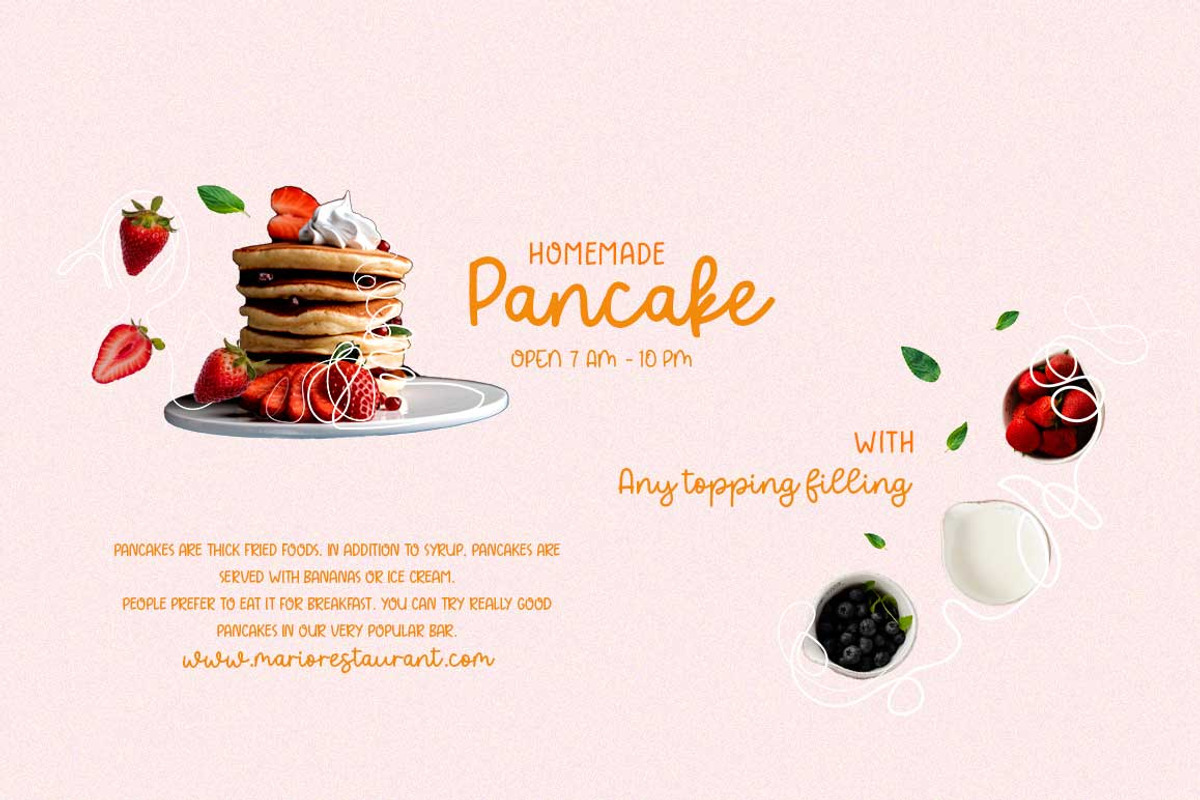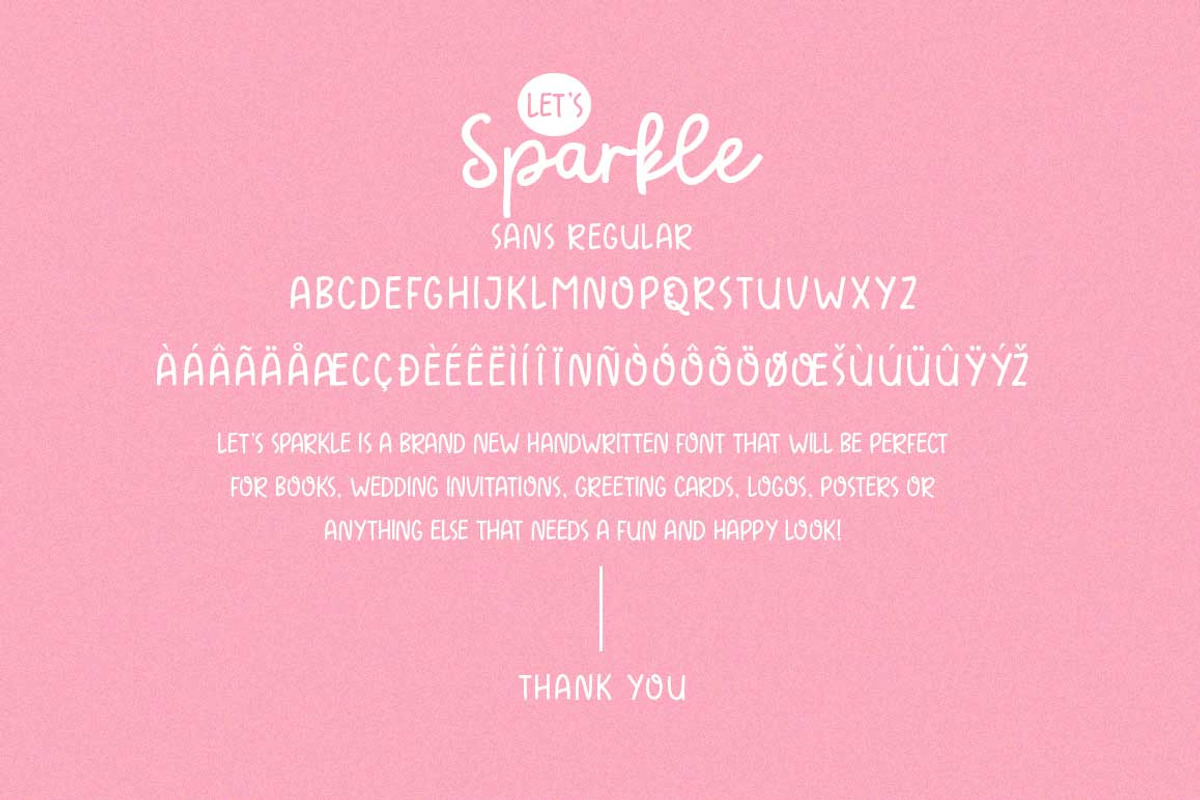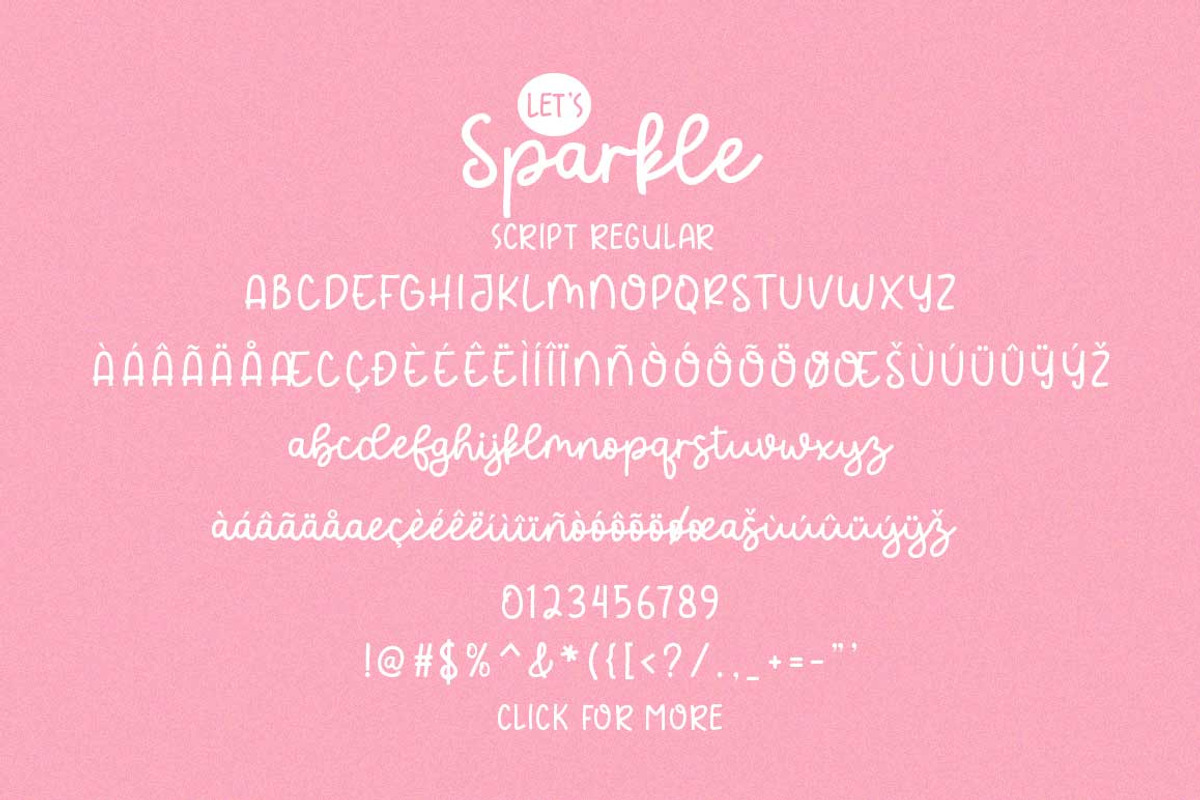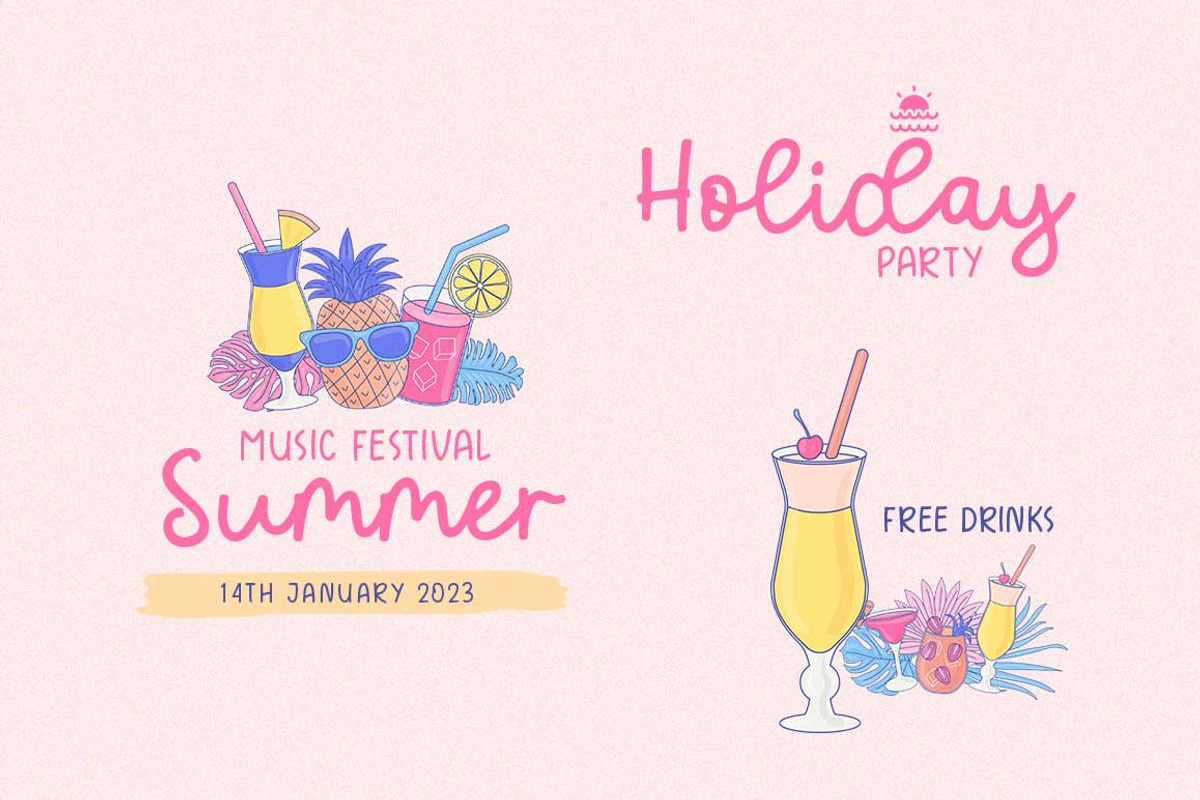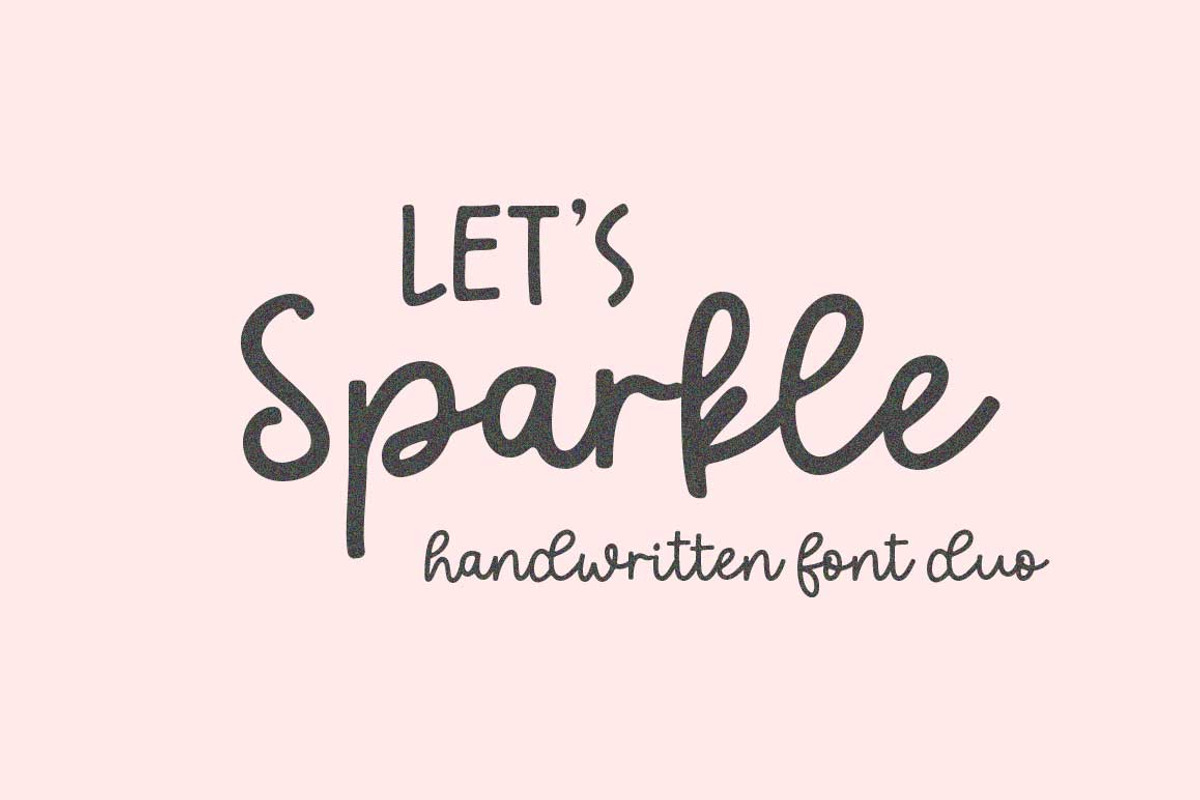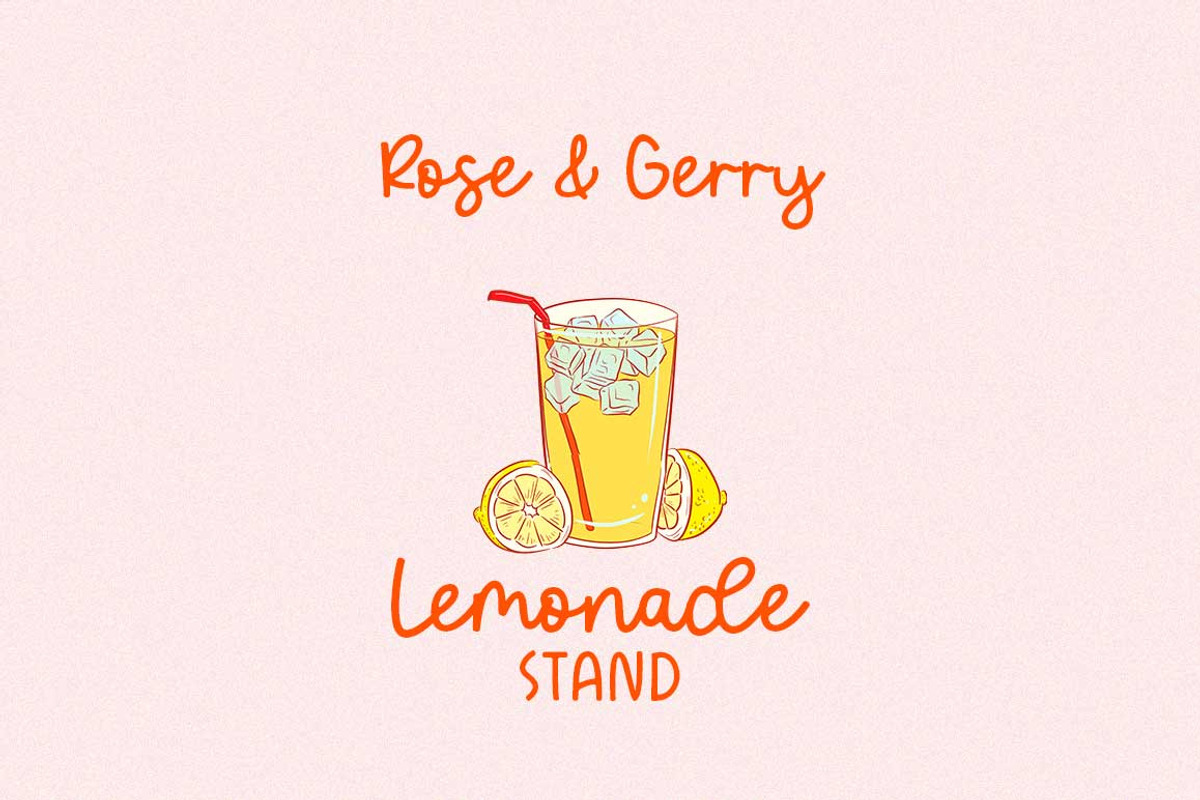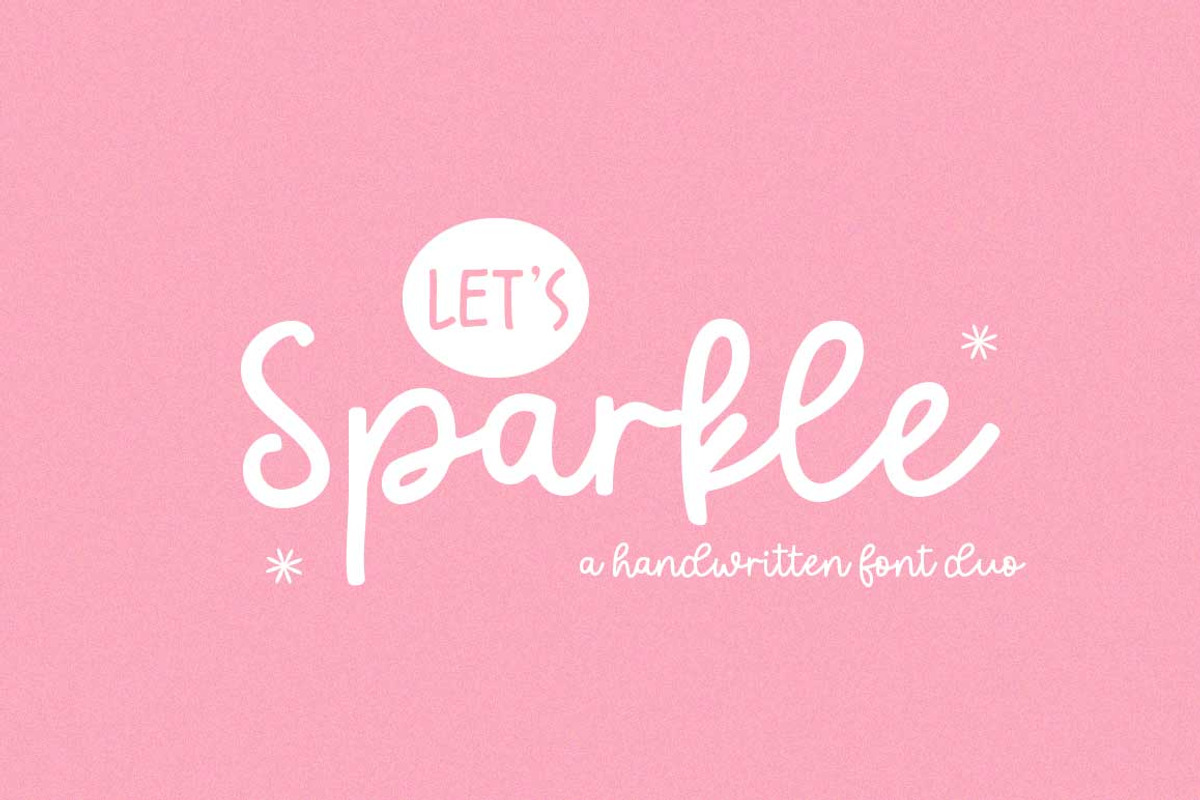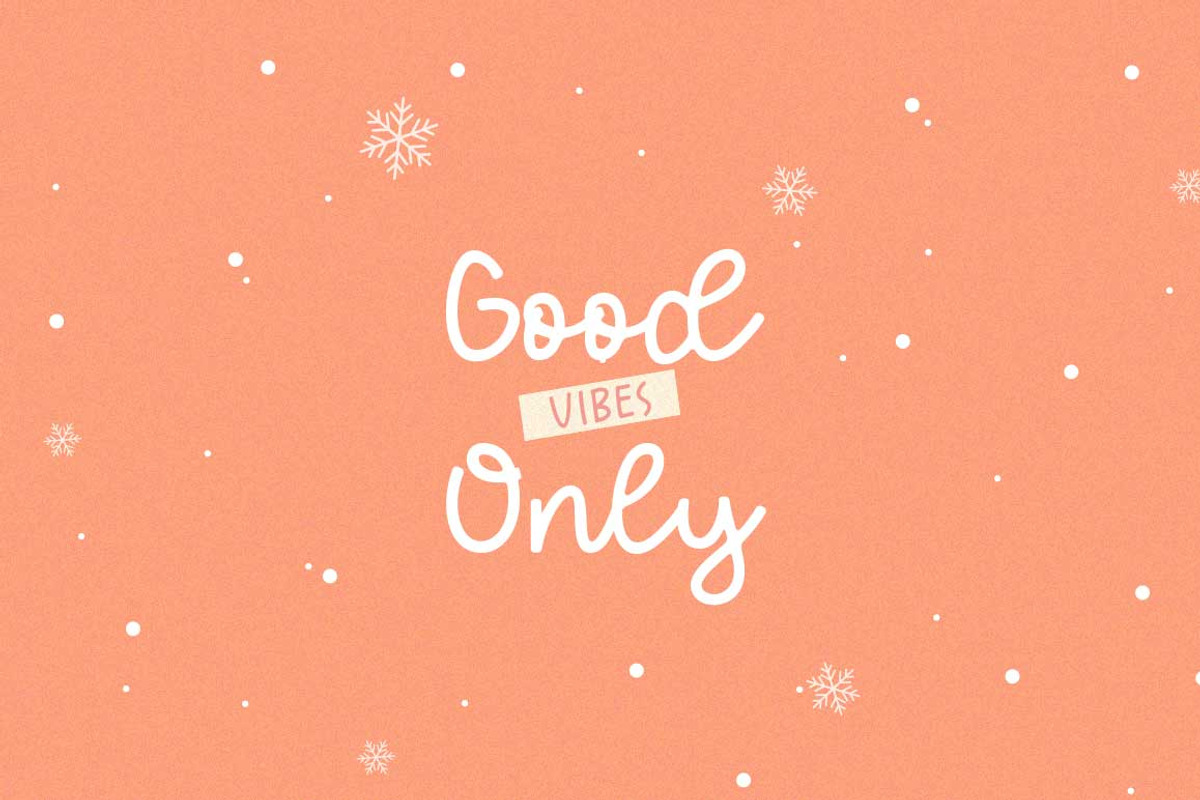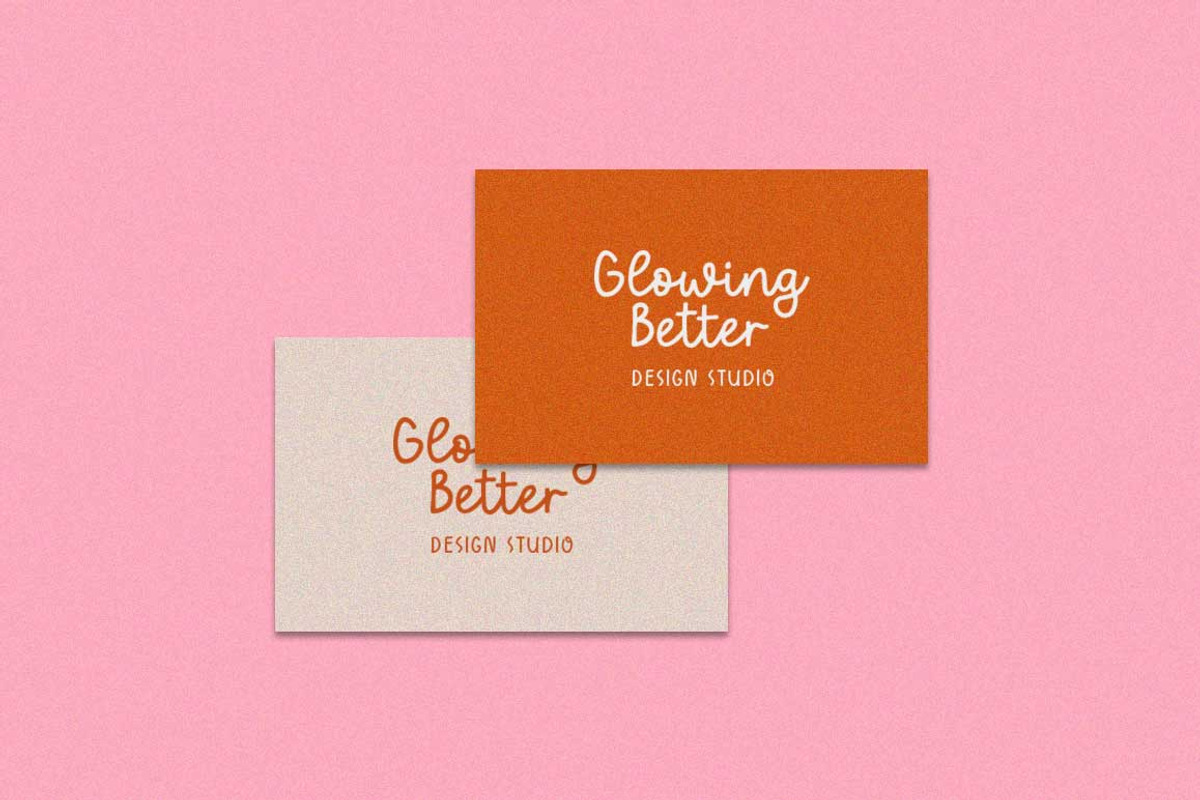
Let's Sparkle | Font Duo
Let's Sparkle is a new handwritten font that's perfect for books, wedding invitations, greeting cards, logos, posters, or anything else you need to create a fun, happy look!